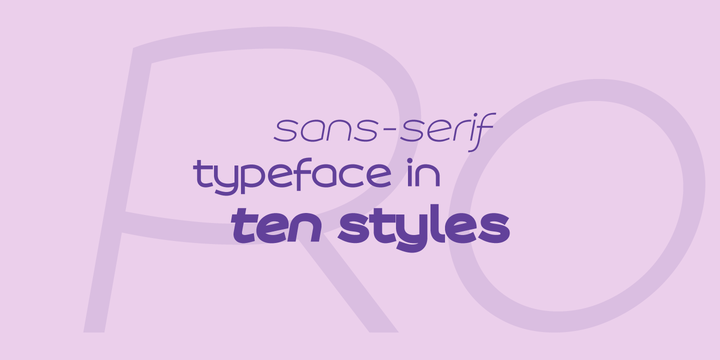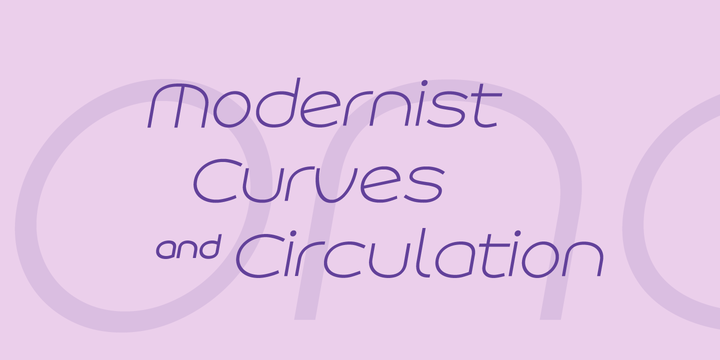
Roona Sans Font Family
Roona Sans is a modernist typeface with wide curves.
Drawn and created by Måns Grebäck in 2018, this space aged type comes in ten different styles;
Thin, Light, Medium, Bold and Black – and each weight as italic.